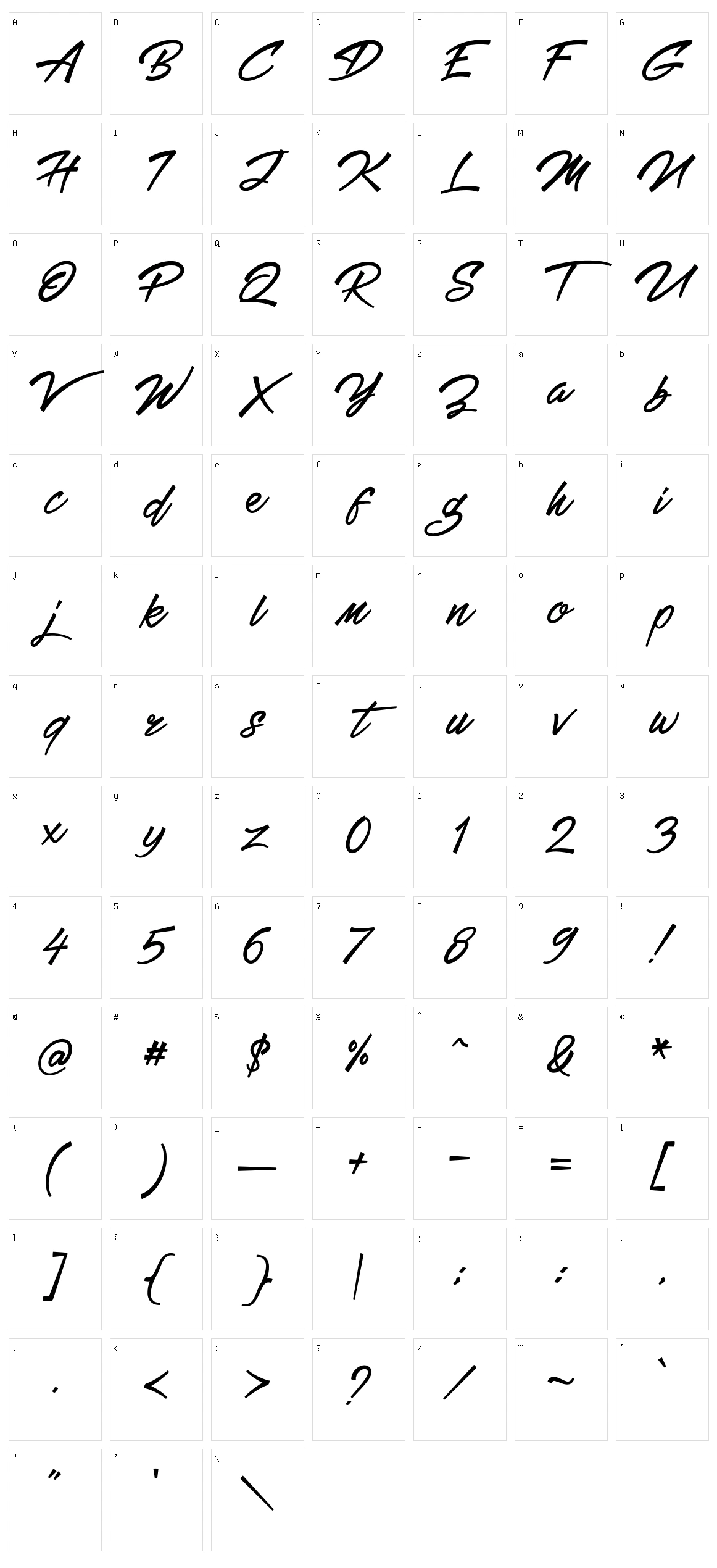
The free font Windasa is carefully designed by Emyself Design, showcasing a thoughtful balance of creativity and usability and falls under the Script font style. When you download the ZIP file, it contains only 123.92 KB of font files, making it lightweight and quick to download. Please review the license details below to understand permitted usage and distribution rights. If license information is not available, we recommend using this font for personal projects only or contacting the author directly for commercial usage permissions.